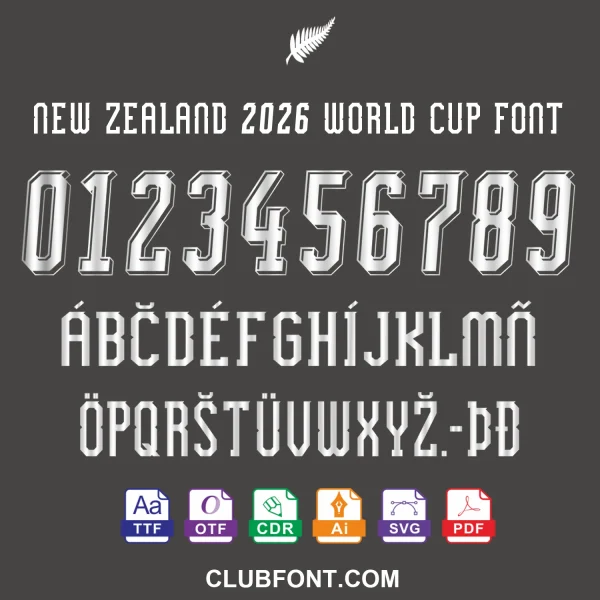
Official New Zealand 2026 World Cup Font Package
Bring the spirit of the All Whites to your creative work with the exclusive New Zealand 2026 World Cup Font Package. As New Zealand prepares to make its mark on the global stage at the 2026 FIFA World Cup, this typeface captures the energy, pride, and modern aesthetic of the tournament.
- Complete Character Set: Includes uppercase, lowercase, numerals, and punctuation marks for versatile design applications.
Unlike generic sports fonts, this pack is inspired by the official visual identity of the New Zealand national team. Whether you are designing a fan banner or updating your website’s typography to celebrate the upcoming matches, these files provide professional-grade quality.